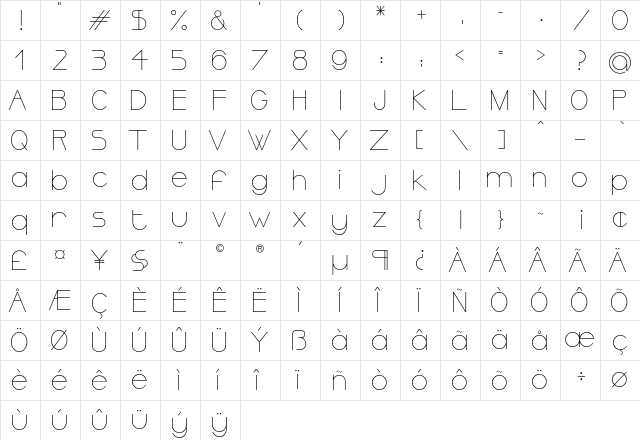
Ormont Light
| Foundry | Youssef Habchi |
| Designer | Youssef Habchi |
Design Context for Ormont Typeface
Ormont takes a measured approach to typography — its balanced proportions and neutral character make it a reliable workhorse for both digital and print work. The delicate stroke weight brings airiness and refinement to layouts.